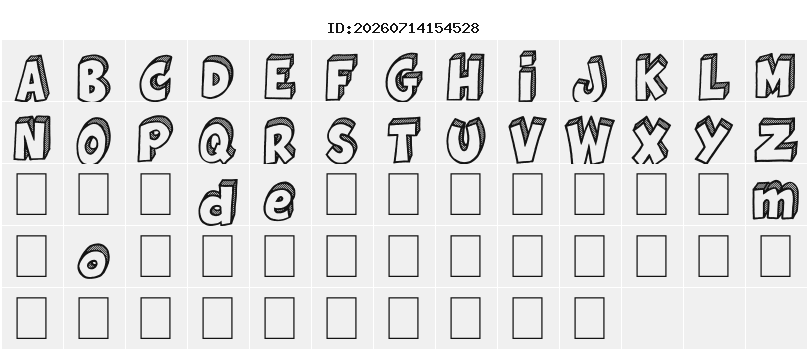
Jackpot Demo Preview
• Font Name: Jackpot Demo
• Full Font Name: Jackpot Demo
• Version: Version 1.00 June 7, 2015, initial release
• Character Count: 32
• Designer: IMAGEX
About Jackpot Demo.ttf
Jackpot Demo.ttf is a modern, elegant sans-serif font designed for ultimate readability and visual harmony. Perfect for branding, headlines, web design, and print materials.